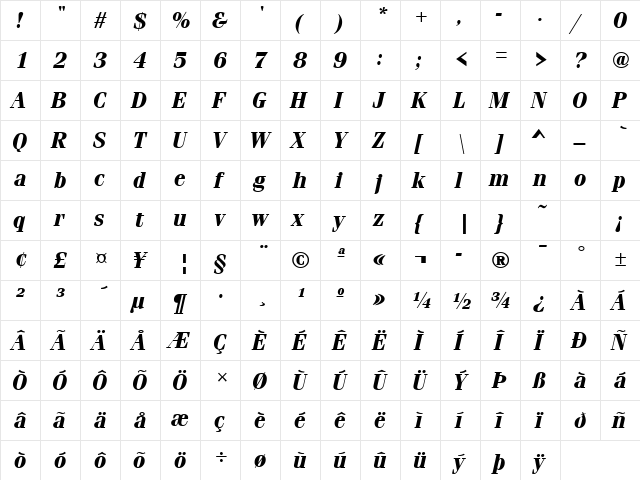
Firenze Bold Italic Font Preview
Firenze Bold Italic
Firenze Bold Italic Font Details
Design Context for Firenze Typeface
Firenze takes a measured approach to typography — its balanced proportions and neutral character make it a reliable workhorse for both digital and print work. Its italic angle brings a sense of urgency and motion to the letterforms. Its bold stroke weight gives it real presence on the page.
Pro Tip: Use Firenze for emphasis, pull quotes, and subheadings where its slanted energy can add rhythm to the layout.